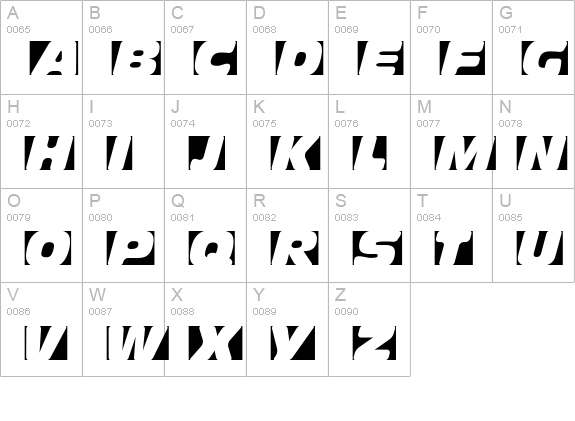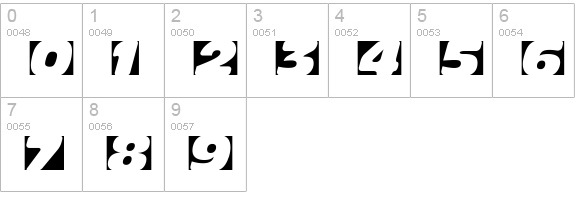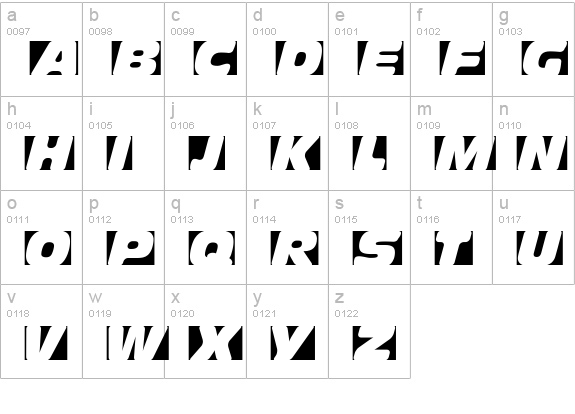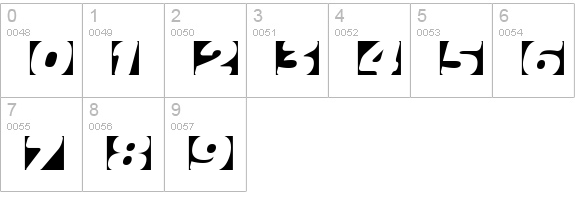
Obliquo Font Details
Introducing Obliquo font, a modern and stylish typeface that exudes sophistication and elegance. With its sleek lines and unique design, Obliquo is perfect for a wide range of projects, from branding to editorial design. The font features a subtle slant that adds a touch of dynamism to any text, making it stand out from the crowd. What's even better is that Obliquo is completely free to download at FontsMarket.com! This means you can easily access this stunning font and use it in your projects without any cost. Whether you're working on a website, a poster, or a logo, Obliquo is sure to elevate your design and leave a lasting impression. Don't miss out on this fantastic opportunity to enhance your typography with the beautiful Obliquo font - download it for free today at FontsMarket.com.